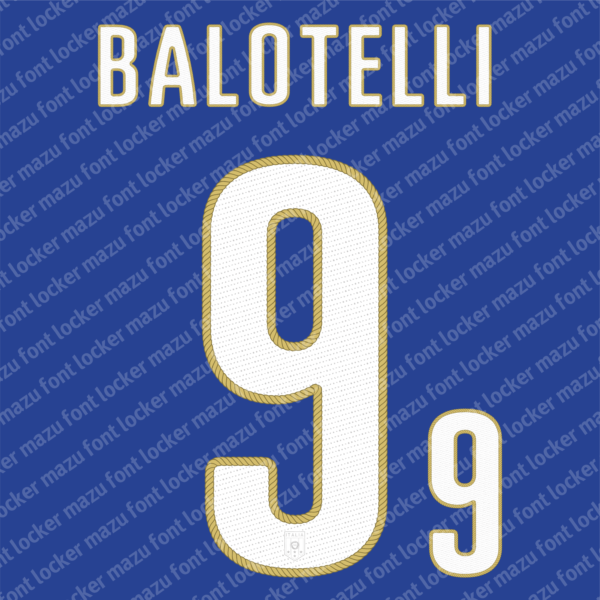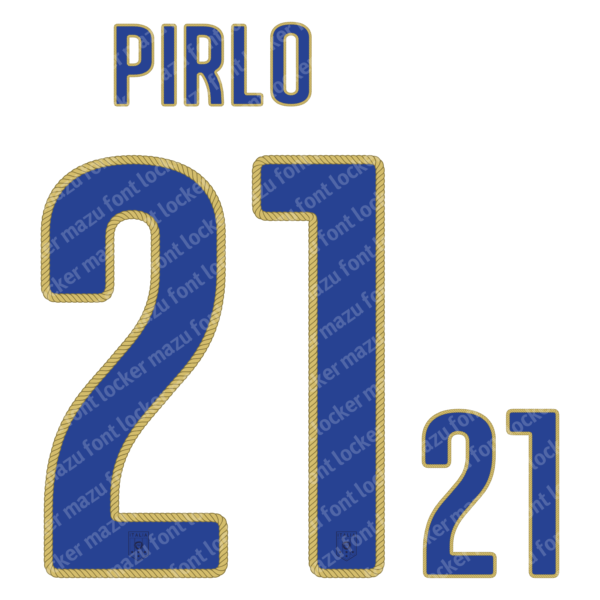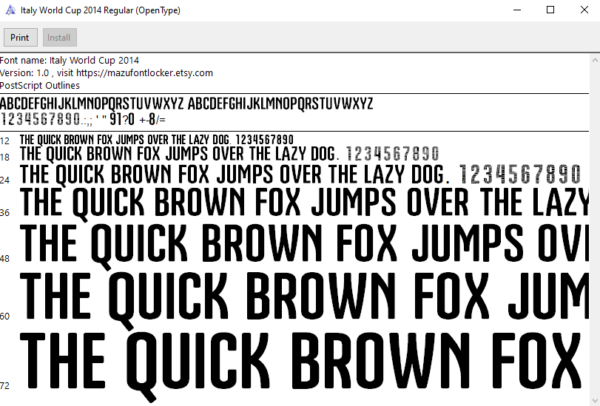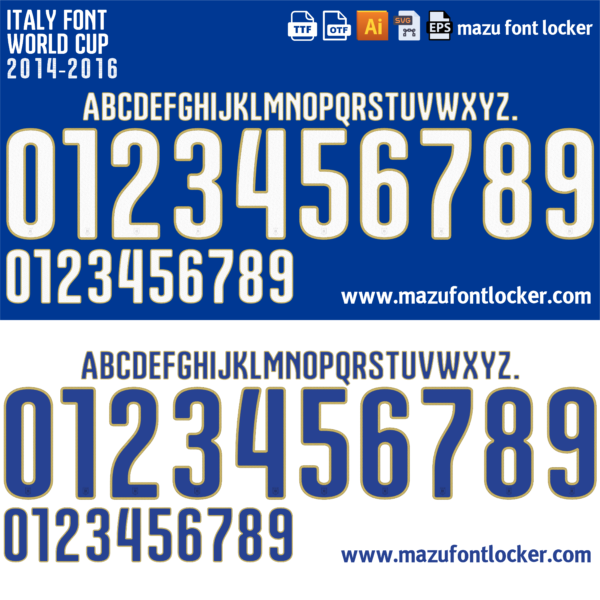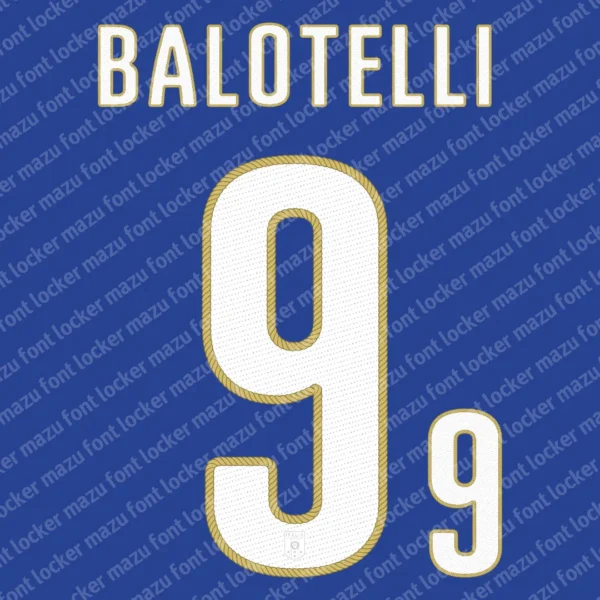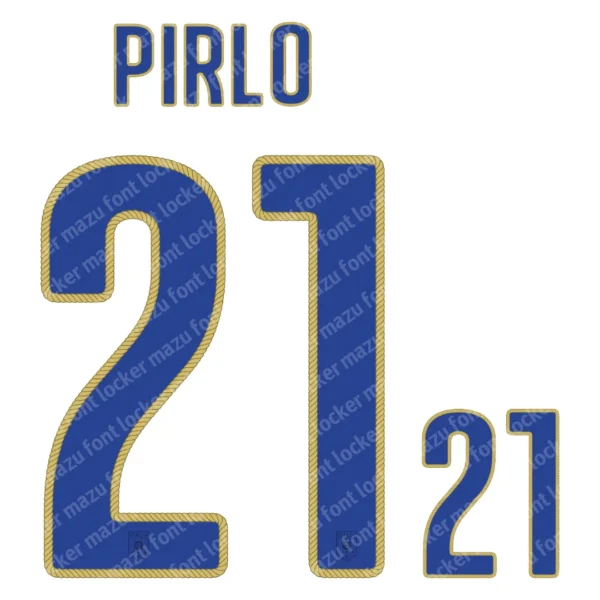
Italy World Cup 2014 Font Vector – Classic Azzurri Legend
Download the Italy World Cup 2014 Font Vector (AI, SVG, OTF, TTF) and unleash the thunderous azure-blue volcanic eruption of ultra-ferocious match typography that exploded like a roaring Azzurri tsunami across the iconic Brazilian stadiums and global battlegrounds during the legendary Italy World Cup 2014 campaign.
This premium font captures the commanding, majestic war-machine lettering that embodies the unstoppable Azzurri spirit — delivering raw Italian passion, explosive tactical brilliance, iron-clad resilience, and legendary warrior grit that defined the football world.
Italy World Cup 2014 Font Vector – Authentic Azzurri Typeface
The Italy World Cup 2014 Font Vector is a premium typeface that accurately recreates the official match lettering worn by the Italy national team during the 2014 FIFA World Cup campaign. This high-quality vector font kit captures the bold, classic, and elegant typography that represents the pride, passion, and rich football heritage of the Azzurri.
Designed for professional designers and passionate Italy fans, the Italy World Cup 2014 Font Vector delivers perfect authenticity for creating realistic jersey mockups, fan merchandise, matchday posters, social media graphics, and Italian football content. It pairs beautifully with the iconic blue kit featuring the famous Italy crest from the 2014 campaign.
This font stands out because of its sharp vector precision and strong national identity. Every letter and number is crafted to match the exact style used on the players’ shirts during the 2014 World Cup campaign in Brazil. Whether you are making realistic kit templates or exciting Azzurri content, the Italy World Cup 2014 Font Vector gives your designs that authentic Italian look.
The letterforms in the Italy World Cup 2014 Font Vector are tall, bold, and highly readable. The strokes have a strong, clean weight with excellent edge definition that looks powerful on the back of jerseys while maintaining classic European elegance and modern strength.
• Full uppercase A–Z and numbers 0–9 in authentic Italy World Cup 2014 style
• Create highly realistic Italy World Cup 2014 home and away jersey mockups with accurate lettering
• Produce custom Italy merchandise with the 2014 aesthetic
Italy World Cup 2014 Campaign
The 2014 FIFA World Cup in Brazil saw the Azzurri bring their legendary defensive discipline and tactical intelligence to the world stage. Italy showcased the fighting spirit and technical quality that have defined Italian football for decades.
Veteran stars and emerging talents united in the quest for glory, adding another chapter to Italy’s proud World Cup history.